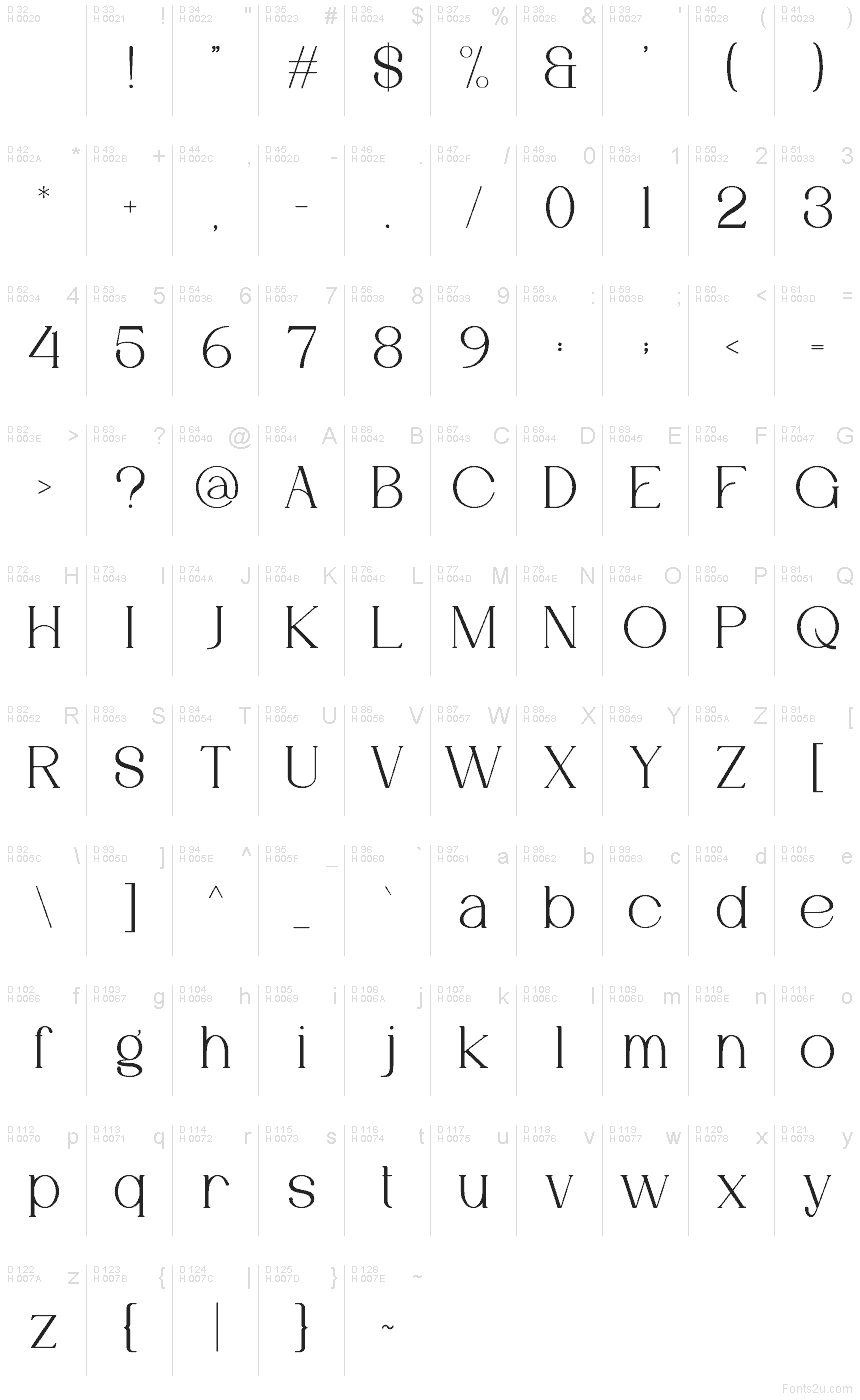
MOELA Light
Moela Light font by Gilang Ternadho is a modern serif font with thin serifs and clean lines that give it high-end sophistication. The typeface truly shines in its capacity to produce elegant and luxurious statements that don’t take away from its readability.
Use this fine resource in advertising, magazines titles, packaging design, branding projects, poster designs or greeting cards, wedding invitations, book covers.